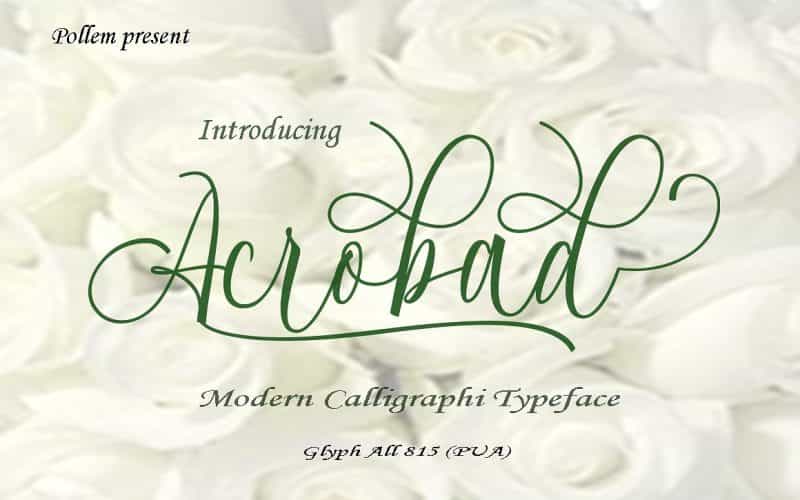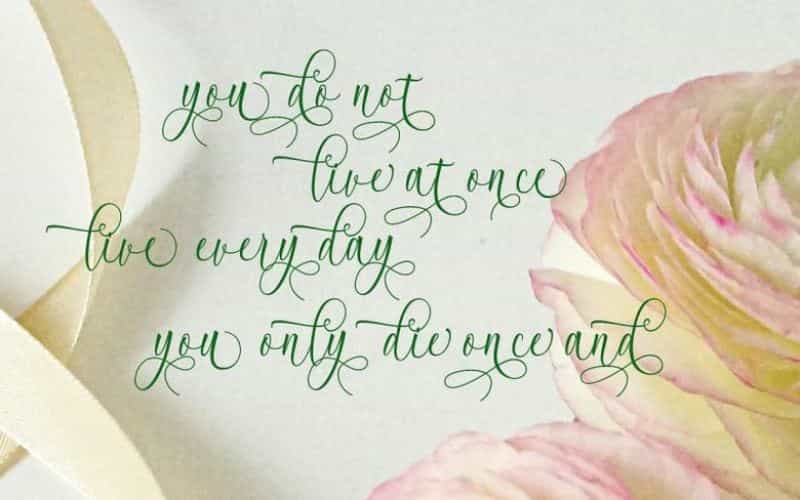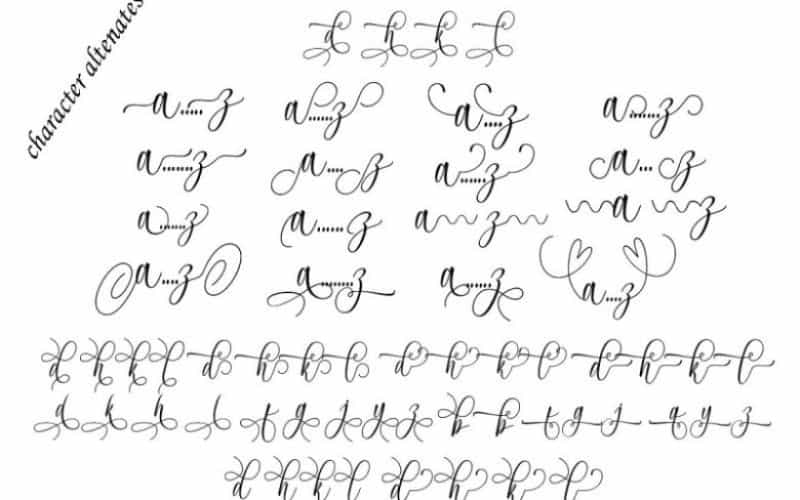
Discover Acrobad Script Font, part of the Calligraphy collection—a versatile and unique font perfect for adding a personal touch to your projects. Download it for free and enjoy crafting designs with style, from invitations to social media posts. This font is available exclusively for personal use, giving you the freedom to create without limits. Unlock your creativity with Acrobad Script Font today!
Acrobad is a font that has a varying baseline, smooth line, and a classic and elegant touch. It can be used for different things. for instance, headings, signature, logos, wedding invitation, t-shirt, letterhead, signage, lable, news, posters, badges and so on.